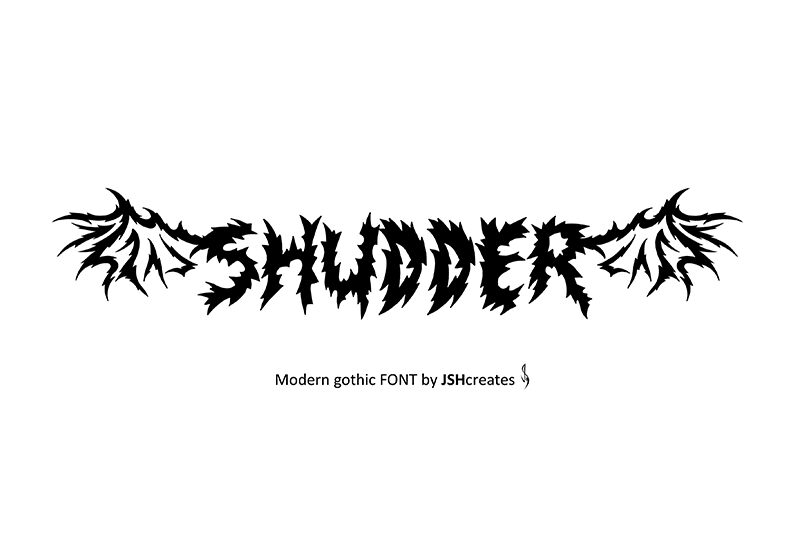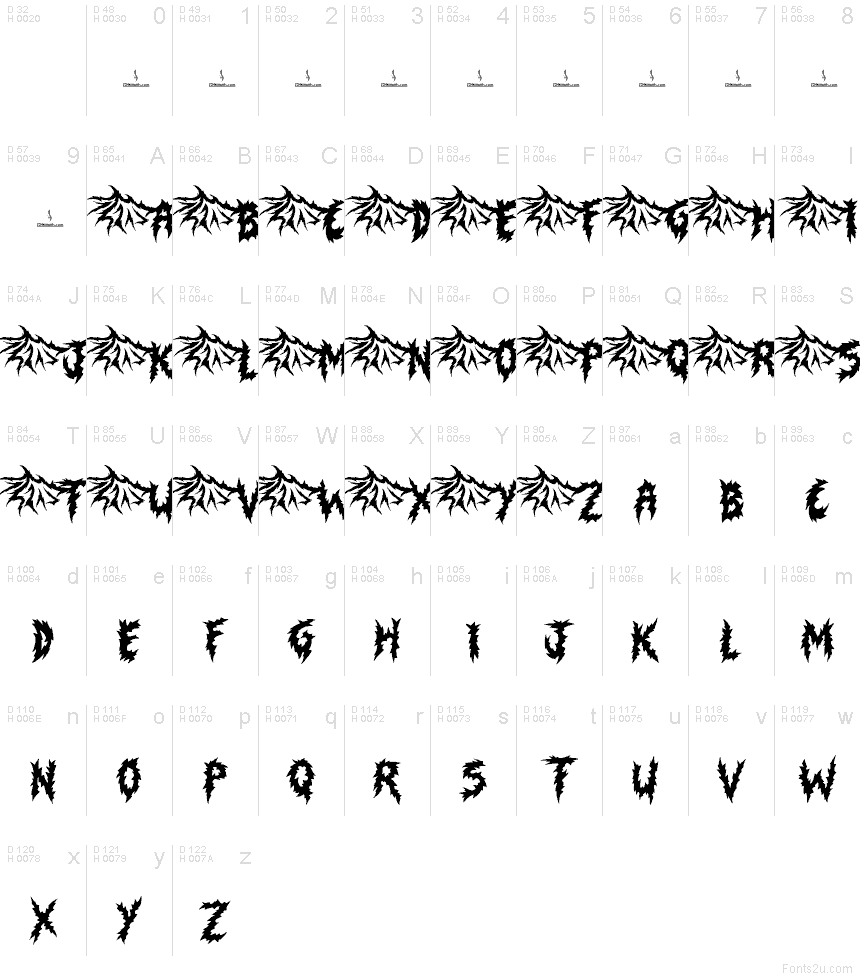
Shudder
Shudder font by JSH creates captures a cheeky and unconventional feel with its jagged and bold letters. Its unconventional style brings energy and intensity to every word it spells. The font is deeply intertwined with gothic motifs, yet has touches of modern elements that enhance its visual appeal.
Use Shudder for creating text-based logos, posters, covers, display headlines, and advertising paragraphs where you want all eyes on the text. Other possibilities include invitations to Halloween parties or book covers for murder mystery novels or comic book layouts.